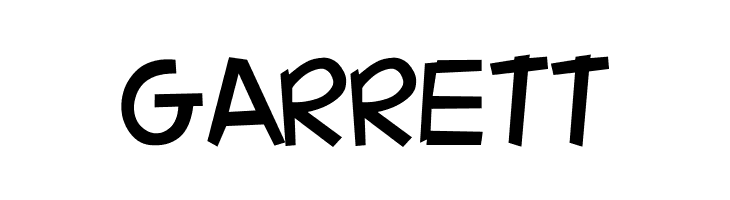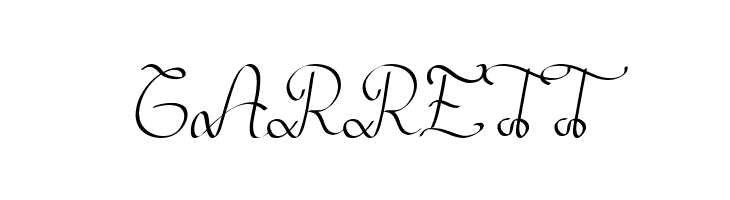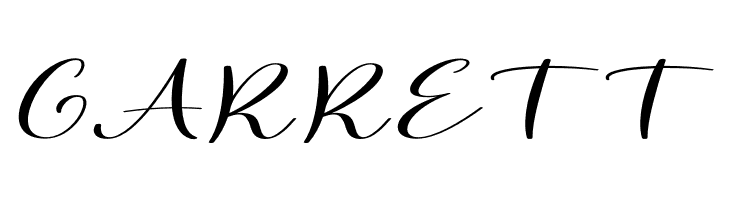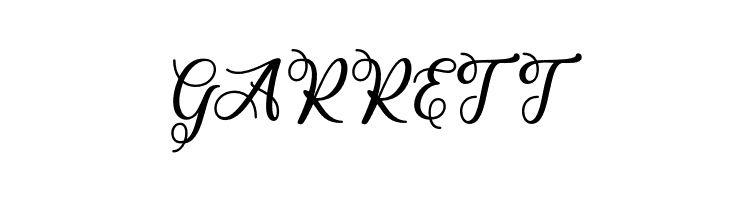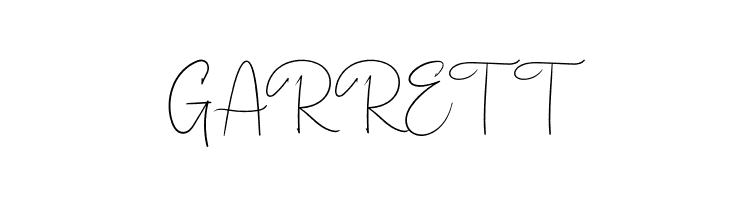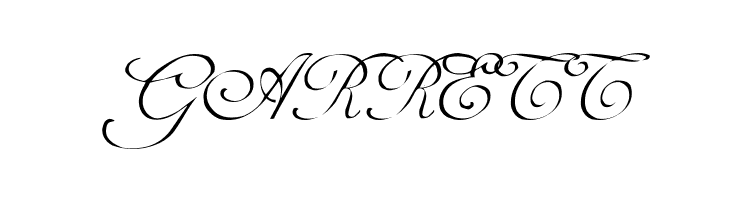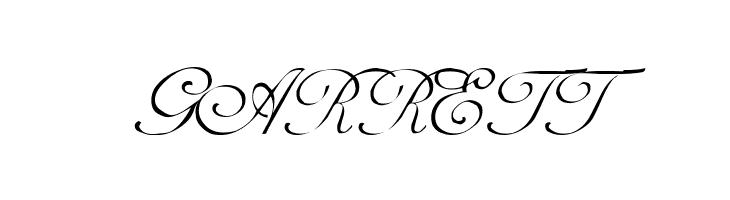
An elegant, flowing script font with smooth, cursive strokes.
A playful, hand-drawn font with bold, rounded characters and a whimsical style.
An elegant script font with flowing, cursive style and intricate flourishes.
An elegant script font with flowing, cursive style and sophisticated flair.
An elegant script font with intricate loops and decorative flourishes.
An elegant, cursive font with ornate swirls and flourishes.
An elegant script font with flowing, cursive letterforms and intricate flourishes.
An elegant script font with flowing, ornate letterforms and intricate swashes.